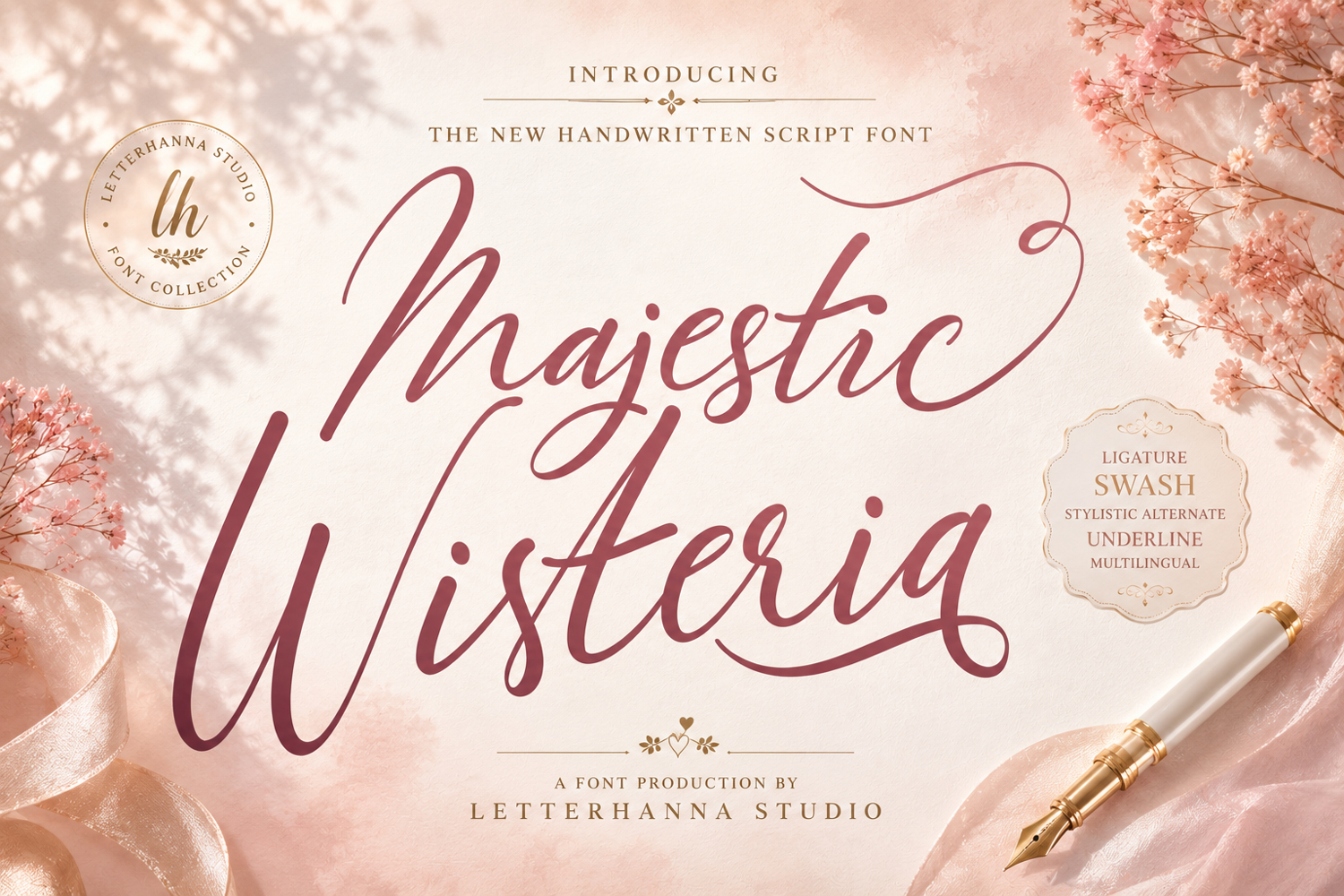
Majestic Wisteria is a a sweet handwritten font that is made with great care in order to produce the expected outcomes. This font can be used for writing various kinds of products according to their respective needs. It will add a luxury spark to any design project that you wish to create! This font is PUA encoded which means you can access all of the amazing glyphs and ligatures with ease!
- Uppercase and Lowercase letters
- Numbering and Punctuations
- Beginning and ending swashes
- Underline swashes
- Stylistic alternate.
Majestic Wisteria